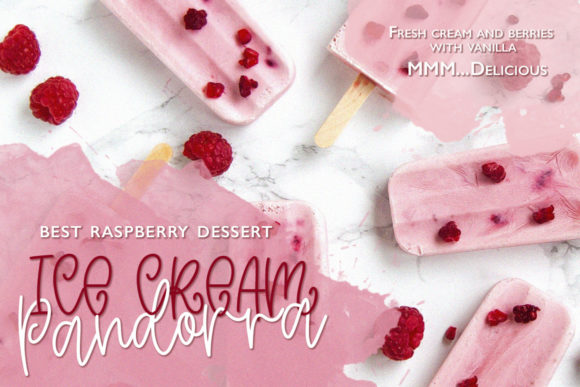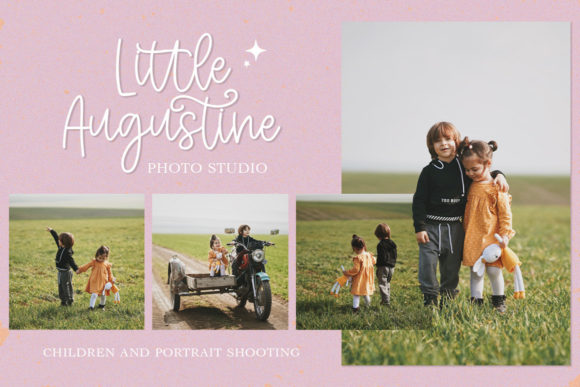
Dear Polly Font
db-ku.com - Script & Handwritten -- Dear Polly is a beautiful and light handwritten font with a unique feel and a stunning impact. It will add a luxury spark to any design project that you wish to create!